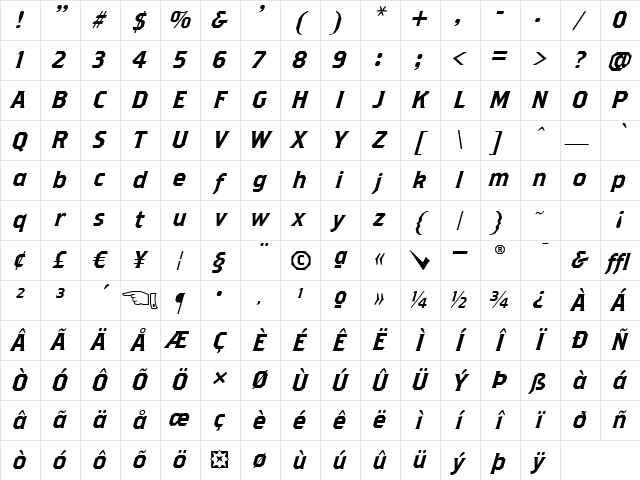
Complete BrothersSuperSlant Regular glyph index. Displaying only characters natively supported by BrothersSuperSlant Regular font.
BrothersSuperSlant is a composed and adaptable typeface that performs quietly and consistently across a wide range of design contexts.
Pro Tip: Use BrothersSuperSlant in both headline and body roles to test its range before committing to a single application.